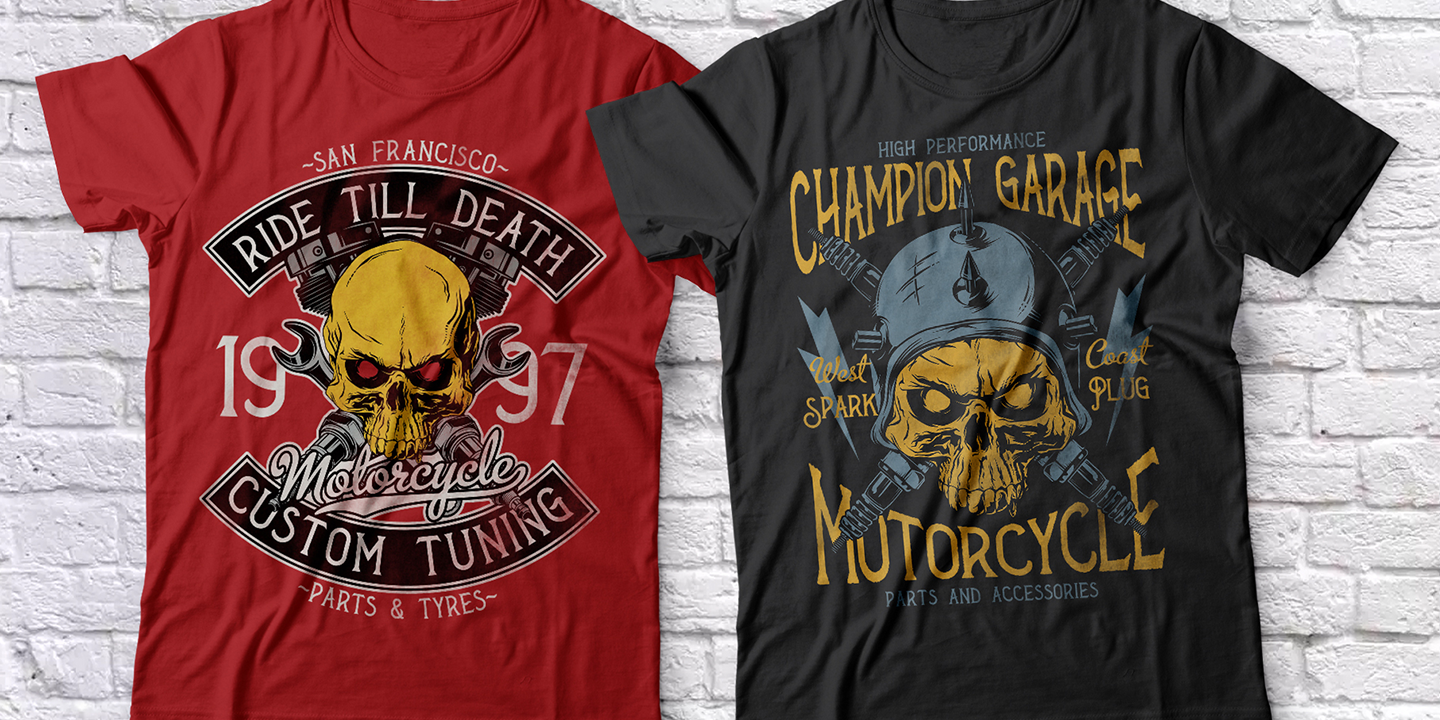
The Biker Whiskey Font is an excellent choice for designs that demand a rugged, vintage, and distinctly masculine aesthetic. Imagine it gracing the logos of motorcycle clubs, adding an authentic, handcrafted feel to craft beer labels, or bringing a powerful, edgy vibe to tattoo parlor branding. It's also perfectly suited for merchandise for rock bands, promotional materials for barbershops, and any project where you want to evoke a sense of heritage, freedom, and raw individuality. With its strong character and often textured appearance, the Biker Whiskey Font is ideal for projects that aim for a bold and memorable impression.
What makes the Biker Whiskey Font truly exciting is its remarkable ability to convey a story of grit, rebellion, and timeless cool. It feels lived-in and authentic, instantly adding depth and personality to your designs. This font is perfect for establishing a brand identity that resonates with themes of adventure, craftsmanship, and a no-compromise attitude. Its unique letterforms, often inspired by vintage signage or hand-painted artwork, ensure your message stands out with an unmistakable character that's both powerful and inviting. The Biker Whiskey Font Free Download offers a fantastic opportunity to infuse your projects with this distinctive spirit.
The Biker Whiskey Font family is typically designed to offer versatility while maintaining its signature rugged and vintage style. While specific family members can vary, you can often expect to find:
• Biker Whiskey Regular
• Biker Whiskey Bold (for added emphasis and stronger headlines)
• Biker Whiskey Distressed (or Textured, for an authentic worn-out look)
• Biker Whiskey Rough (for a more pronounced, grittier texture)
• Biker Whiskey Condensed (for narrower applications)
• Biker Whiskey Script (if it includes a complementary handwritten or brush script style)
These variations provide flexibility for different design applications, allowing you to create engaging visual hierarchies and maintain a consistent, powerful aesthetic across all your projects.